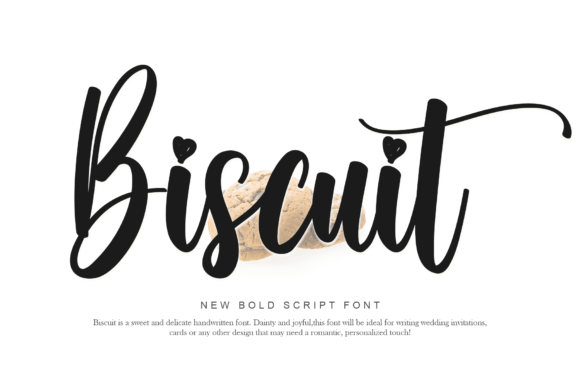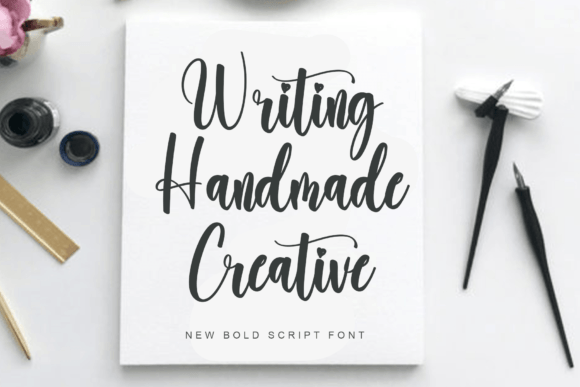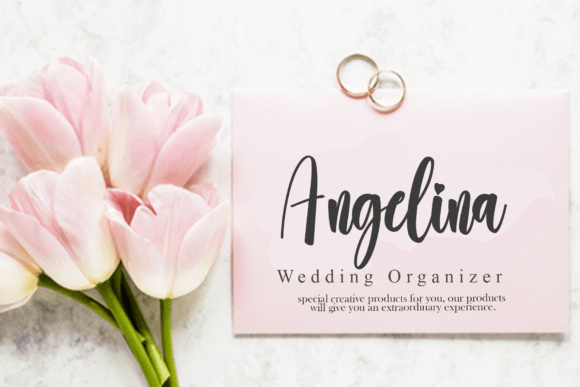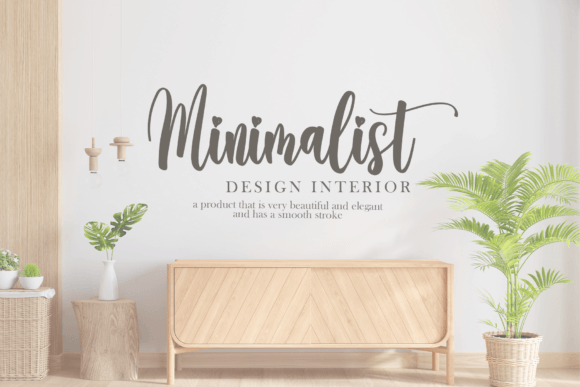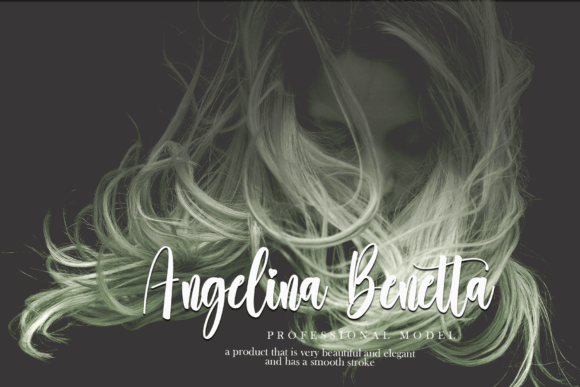
About Biscuit Font
“Biscuit” is more than just a font; it’s a creative catalyst that adds a touch of flair and elegance to your design projects. With its fancy handwritten style, Biscuit is a versatile typeface that can elevate your work across various applications, including logo design, social media, movie titles, and book titles.
When it comes to logo design, Biscuit stands out as a choice that goes beyond the ordinary. Its whimsical yet refined strokes create a distinctive visual identity for your brand. Whether you’re launching a new business or refreshing an existing one, this font brings a level of creativity that captures attention and communicates your brand’s personality.
In the fast-paced world of social media, where visual impact is crucial, Biscuit adds a unique touch to your content. From Instagram posts to Facebook covers, the font’s handwritten charm makes your messages not only eye-catching but also memorable. Biscuit transforms your social media presence, making it not just a platform for communication but also a canvas for artistic expression.
For movie titles, Biscuit lends a touch of sophistication to the opening credits. Whether your film is a romantic comedy, a thrilling action adventure, or a thought-provoking drama, the font adapts to the mood, creating titles that set the tone for the cinematic experience ahead.
Book titles, too, benefit from the distinctive charm of Biscuit. The handwritten aesthetic adds a personal and inviting touch to book covers, enticing readers to delve into the stories within. No matter the genre, Biscuit brings a visual allure that complements the essence of your literary work.
To truly make stunning work with Biscuit font, consider experimenting with different design elements. Play with colors, layouts, and backgrounds to find the perfect combination that aligns with your creative vision. Whether you’re working on a logo that speaks volumes about your brand or crafting social media posts that stand out, let Biscuit be the font that adds that extra touch of creativity.
In conclusion, Biscuit isn’t just a font; it’s a design companion that enhances your creative projects. Suitable for a range of applications, this font invites you to infuse your work with a touch of elegance and sophistication. Make your projects truly stand out by embracing the creative potential of Biscuit font.